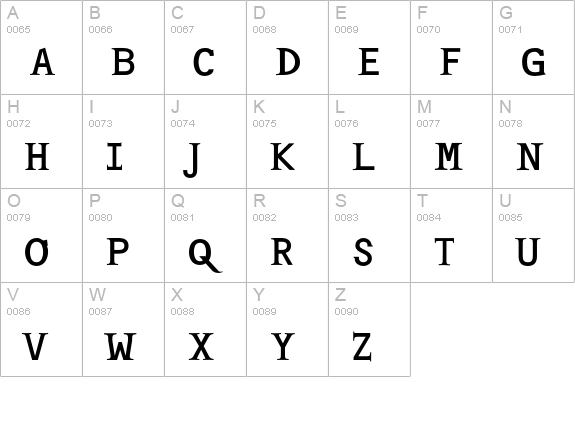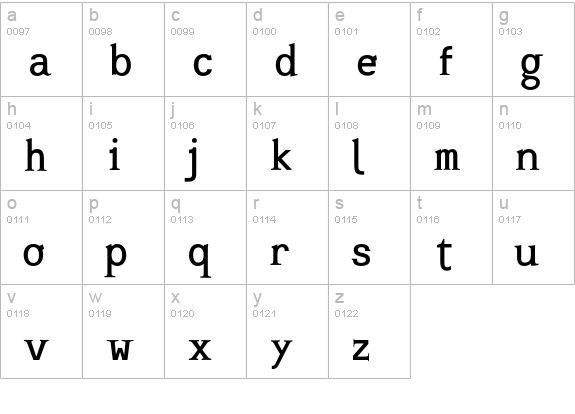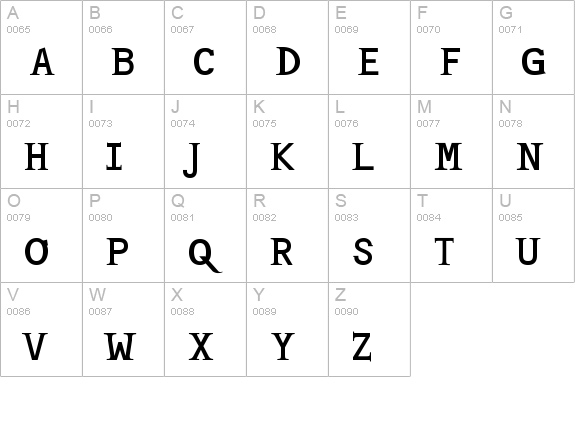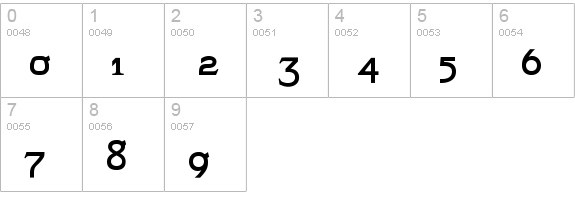
TempMono Font Details
TempMono is a sleek and modern font that exudes elegance and sophistication. With its clean lines and minimalist design, this versatile typeface is perfect for a wide range of creative projects. Whether you are designing a logo, creating a website, or crafting a stylish brochure, TempMono will add a touch of class to your work. One of the best things about TempMono is that it is free. Yes, you read that right! This incredible font is freely available to download at FontsMarket.com. So not only do you get an amazing typeface that will elevate your designs, but you also get it without having to spend a single penny. The creators of TempMono wanted to make sure that everyone has access to high-quality fonts, regardless of their budget. They believe that design is a universal language that should be accessible to all, and they have made it their mission to provide beautiful fonts like TempMono for free. But don't let the fact that TempMono is free fool you into thinking it lacks quality. On the contrary, this font is meticulously designed and crafted with attention to every detail. From its perfectly balanced letterforms to its smooth curves, TempMono is a testament to the skill and expertise of its creators. With its wide range of weights and styles, TempMono offers endless possibilities for your projects. Whether you prefer a bold and impactful look or a more subtle and refined aesthetic, TempMono has got you covered. Its versatility allows you to experiment and explore different design options, ensuring that your creations stand out from the crowd. So why wait? Head over to FontsMarket.com and download TempMono today. Join the growing community of designers who have discovered the power and beauty of this font. Whether you are a professional designer or a hobbyist, TempMono will help you take your designs to the next level. And the best part? It won't cost you a thing. Get your hands on TempMono and let your creativity soar.